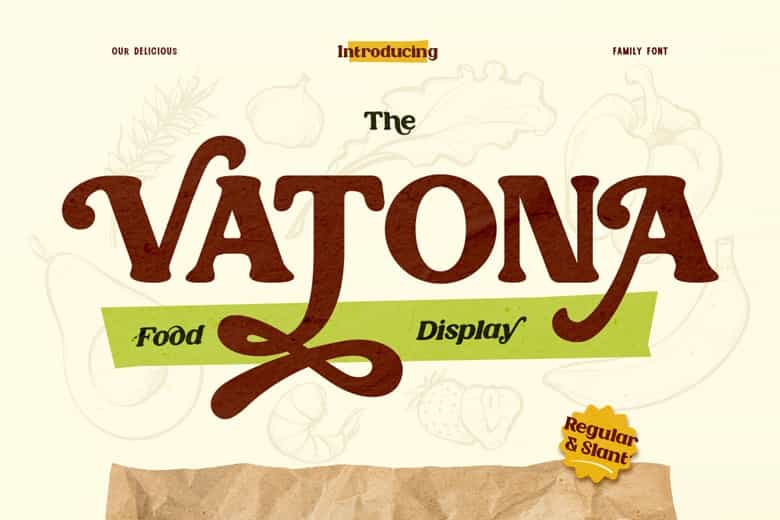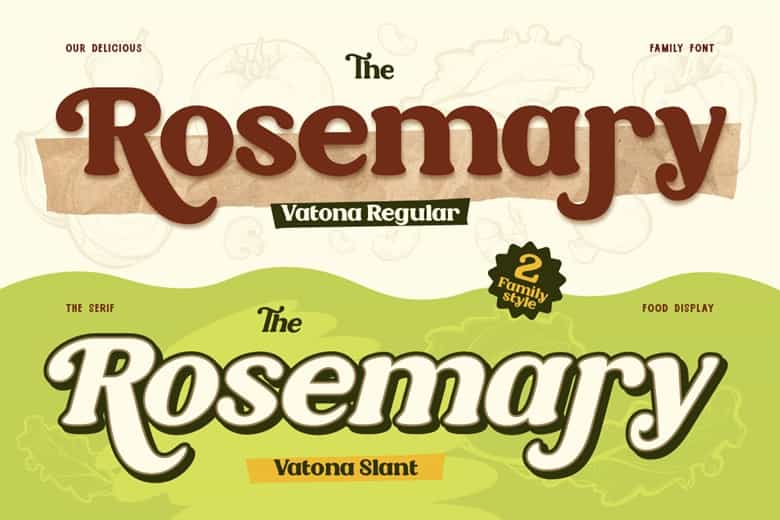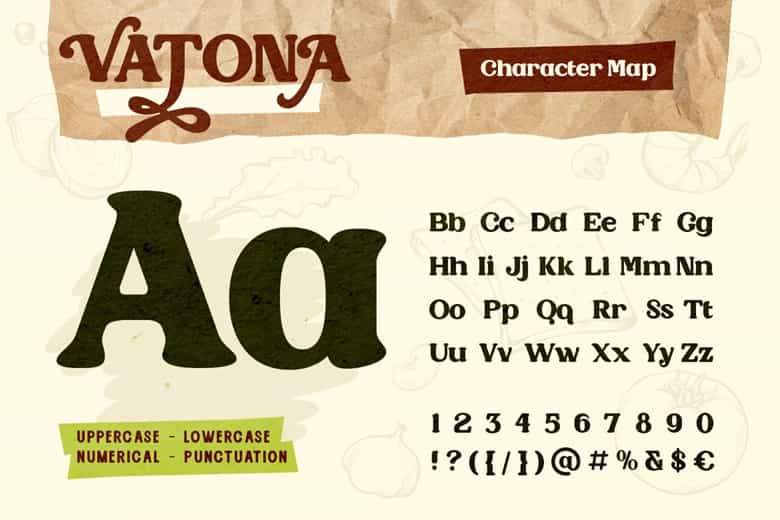
Vatona is a bold and stylish display serif font with a unique mix of vintage charm and modern style. That means it has both the standard and oblique variations in order to be adapted to your taste. Vatona also has ligatures and alternate characters, which would enable one to design with quite a lot of variety.